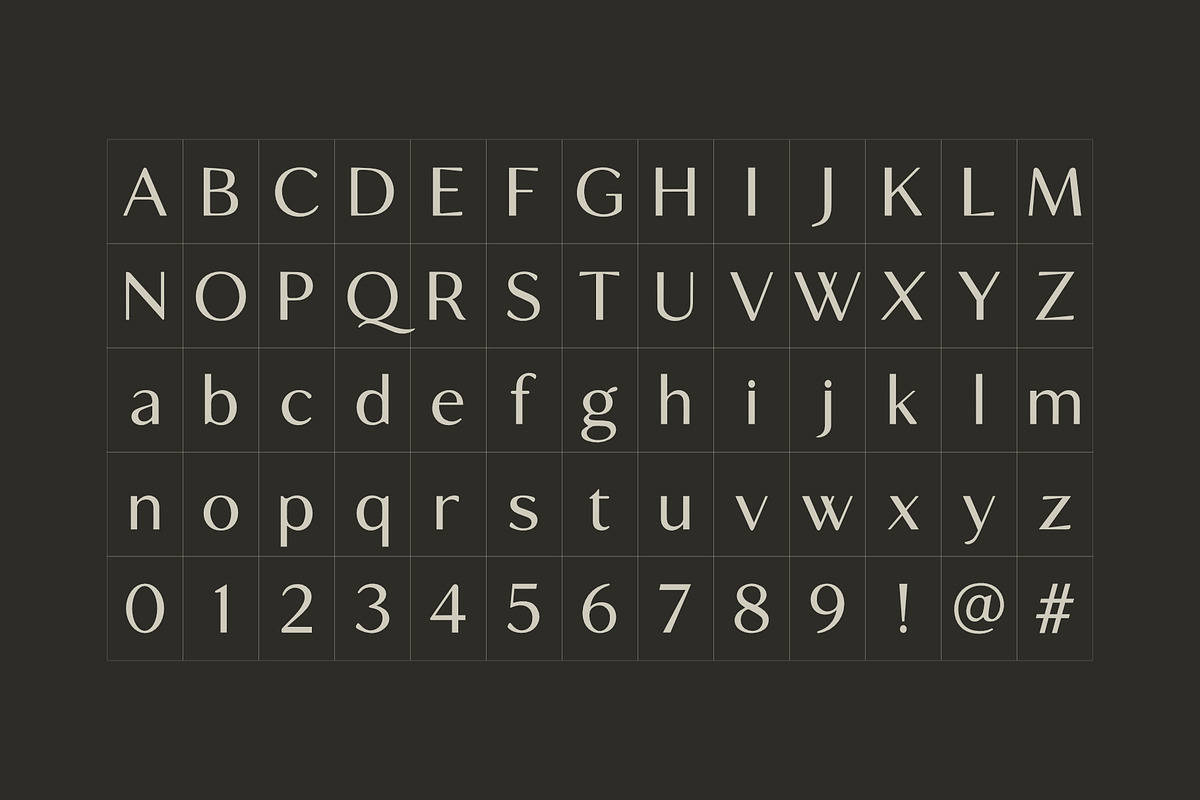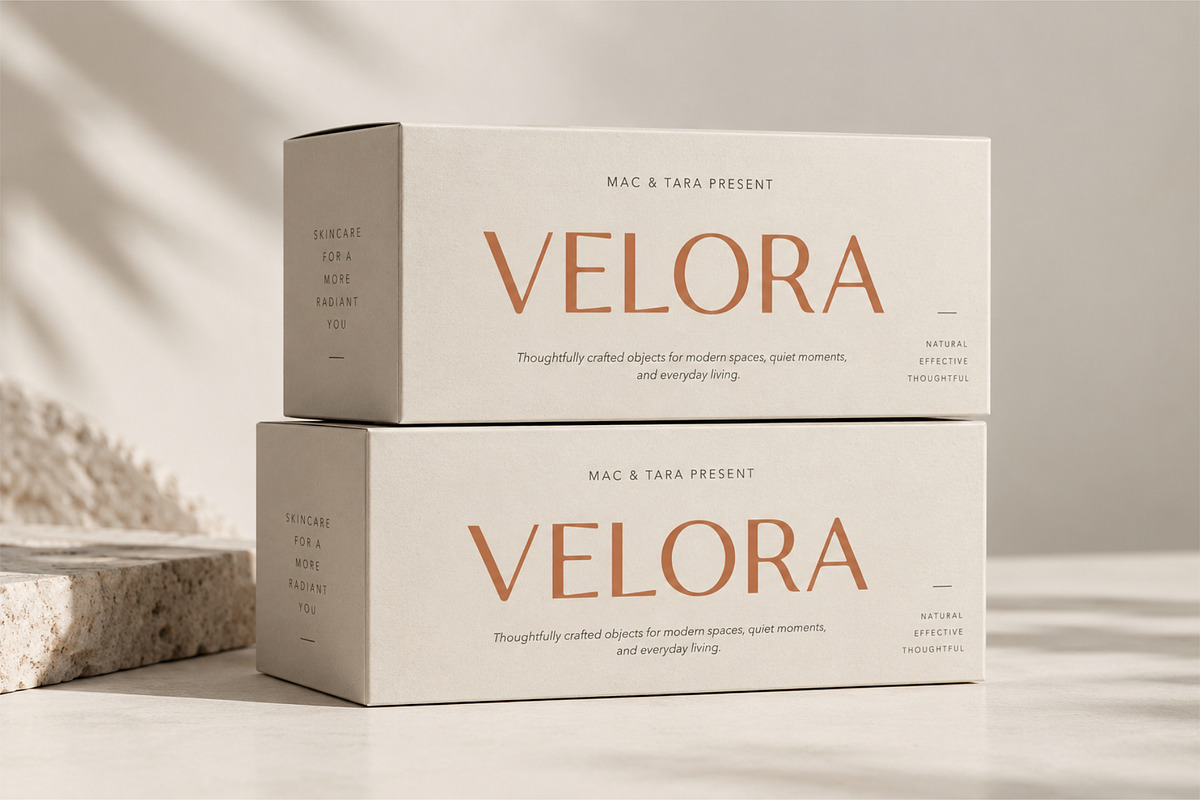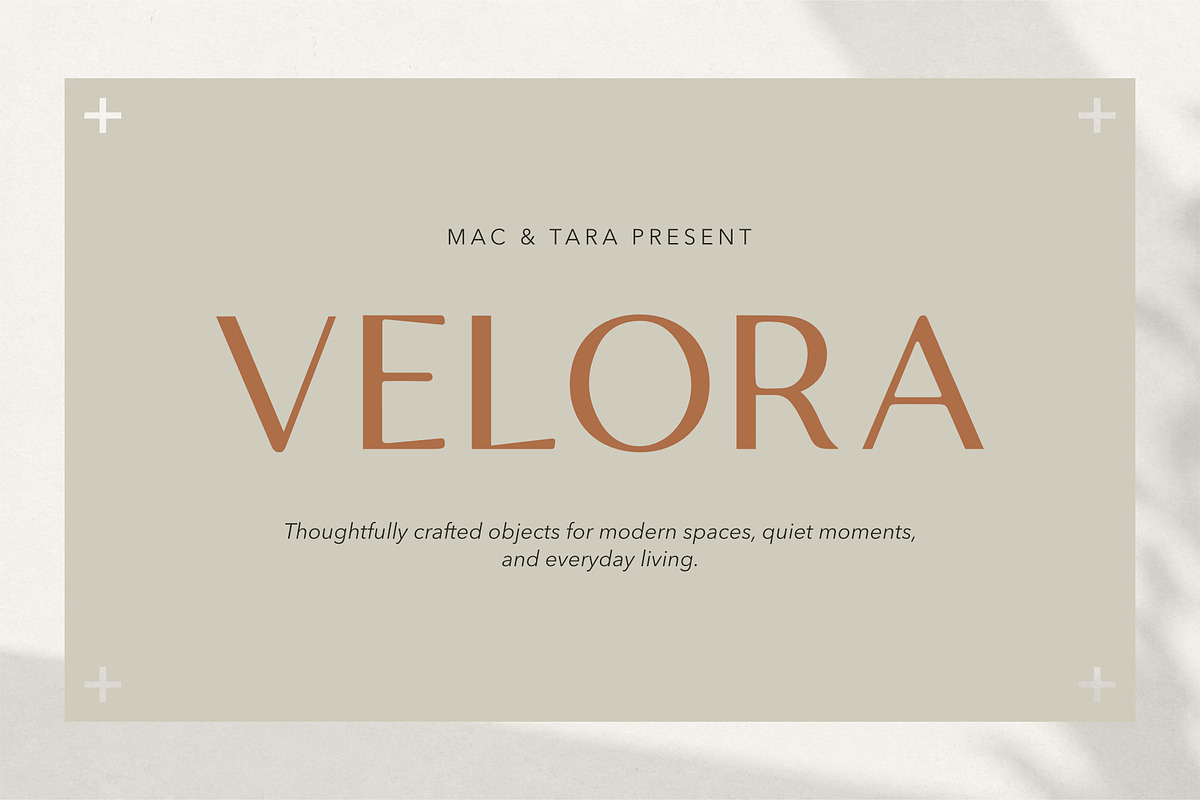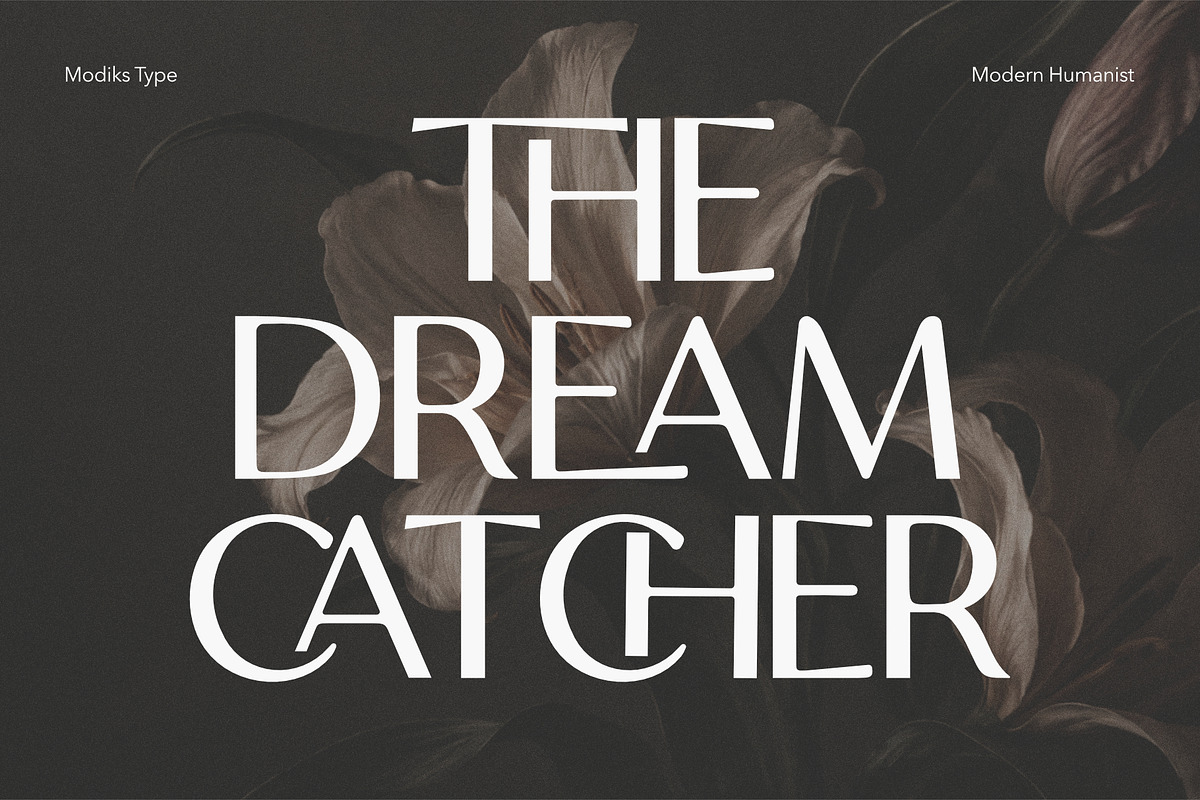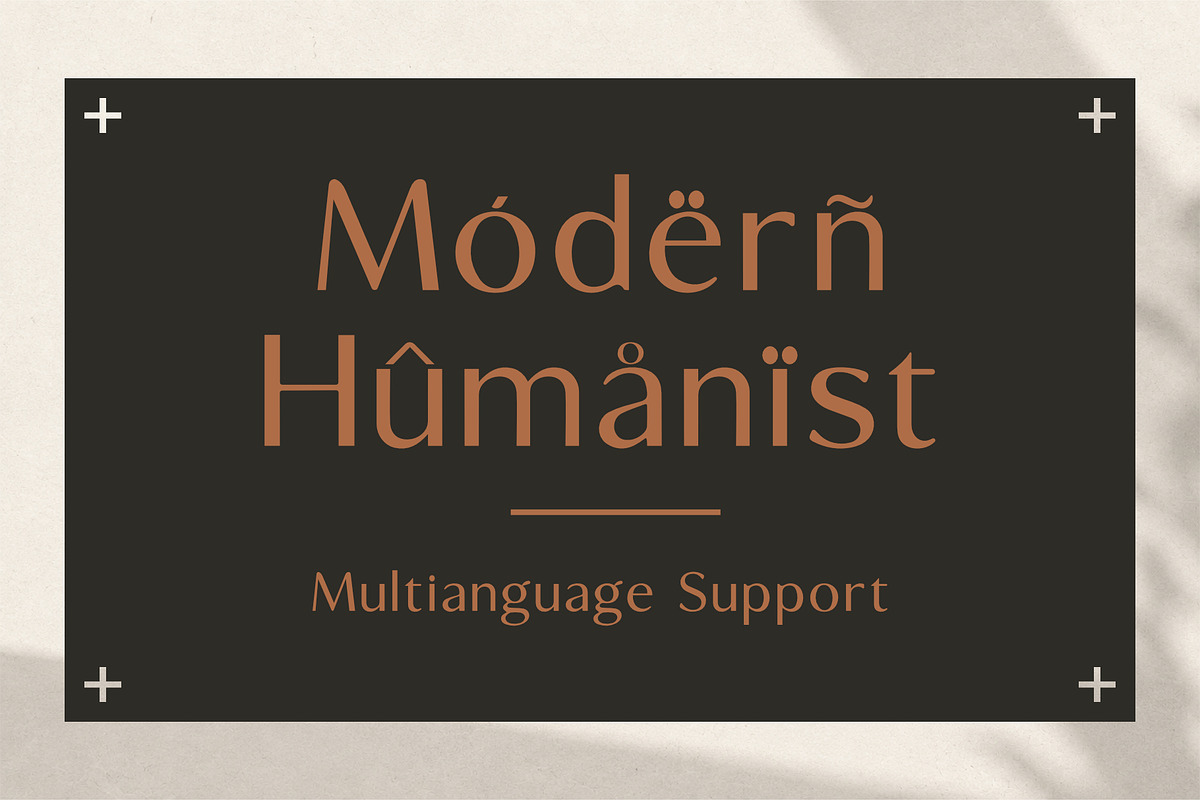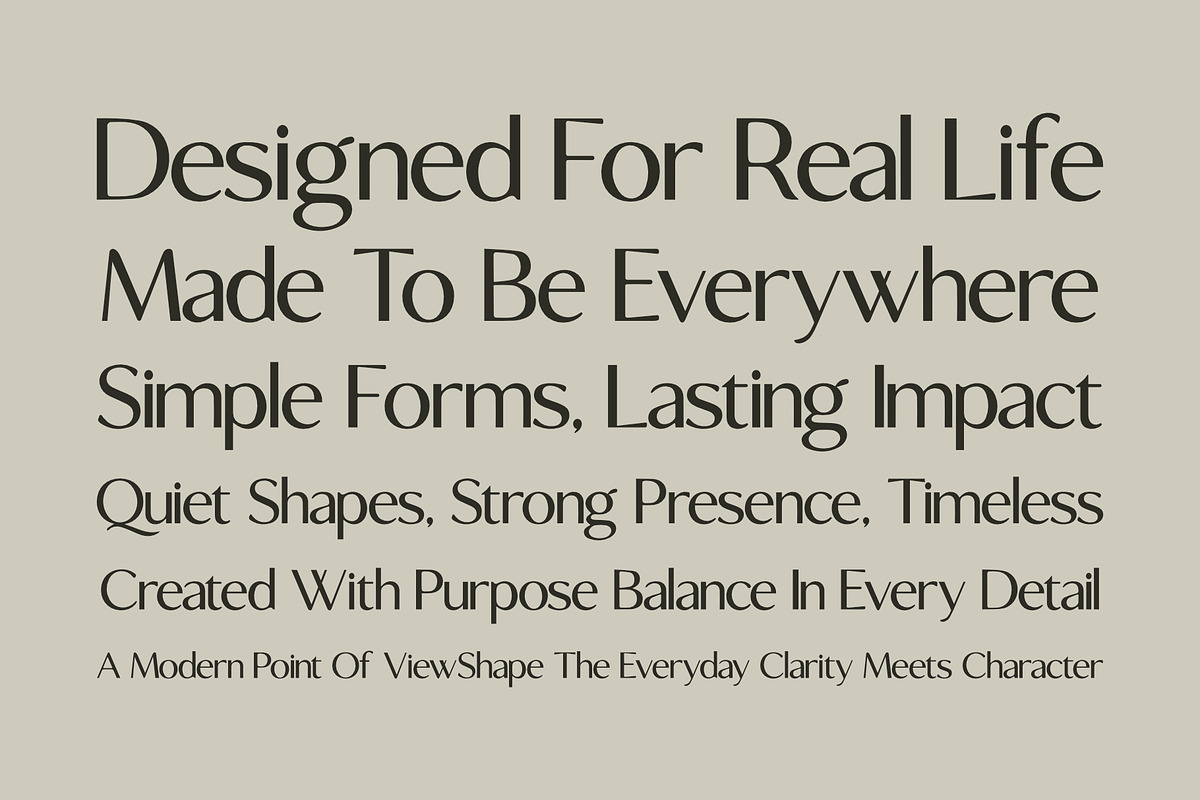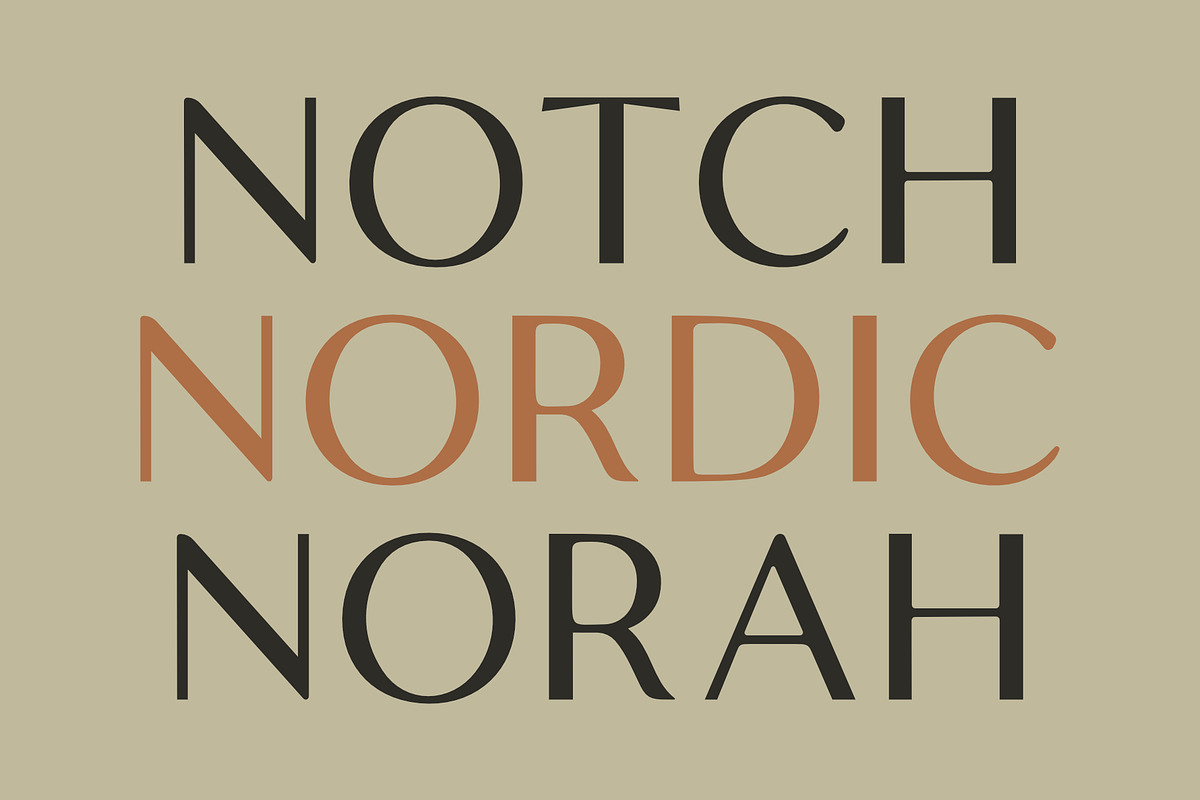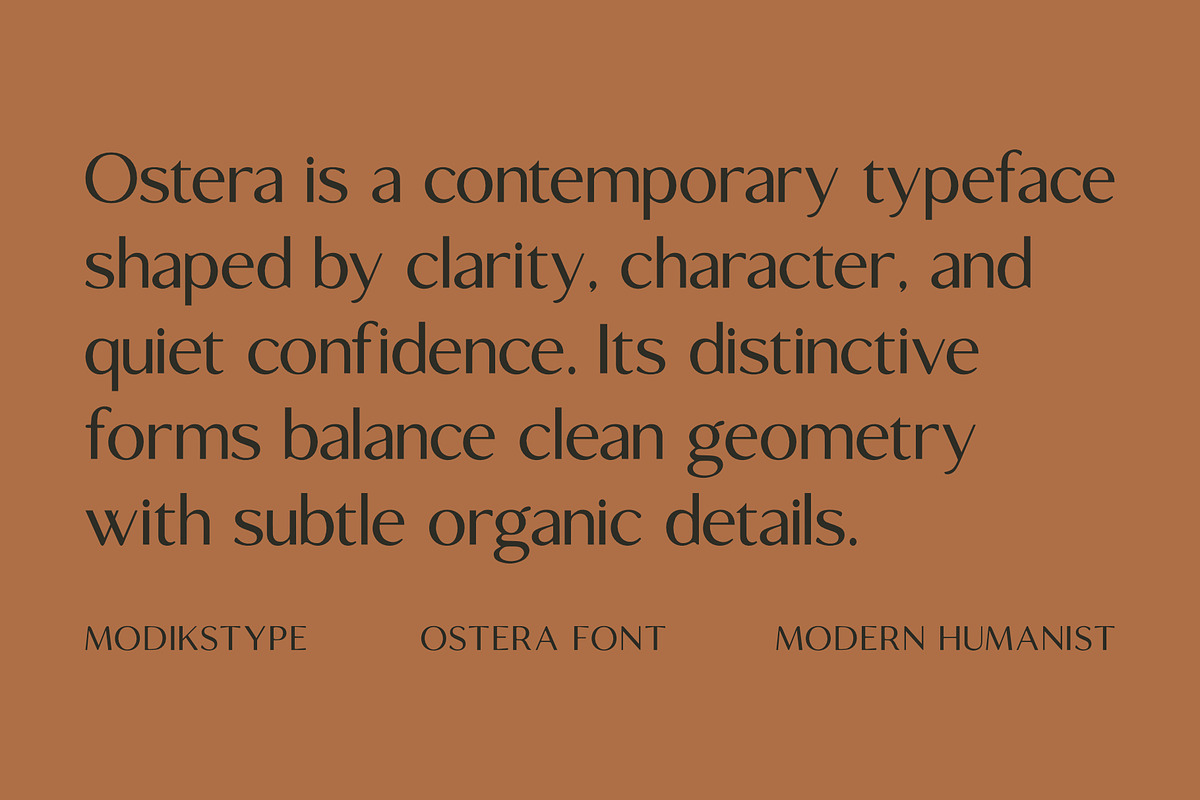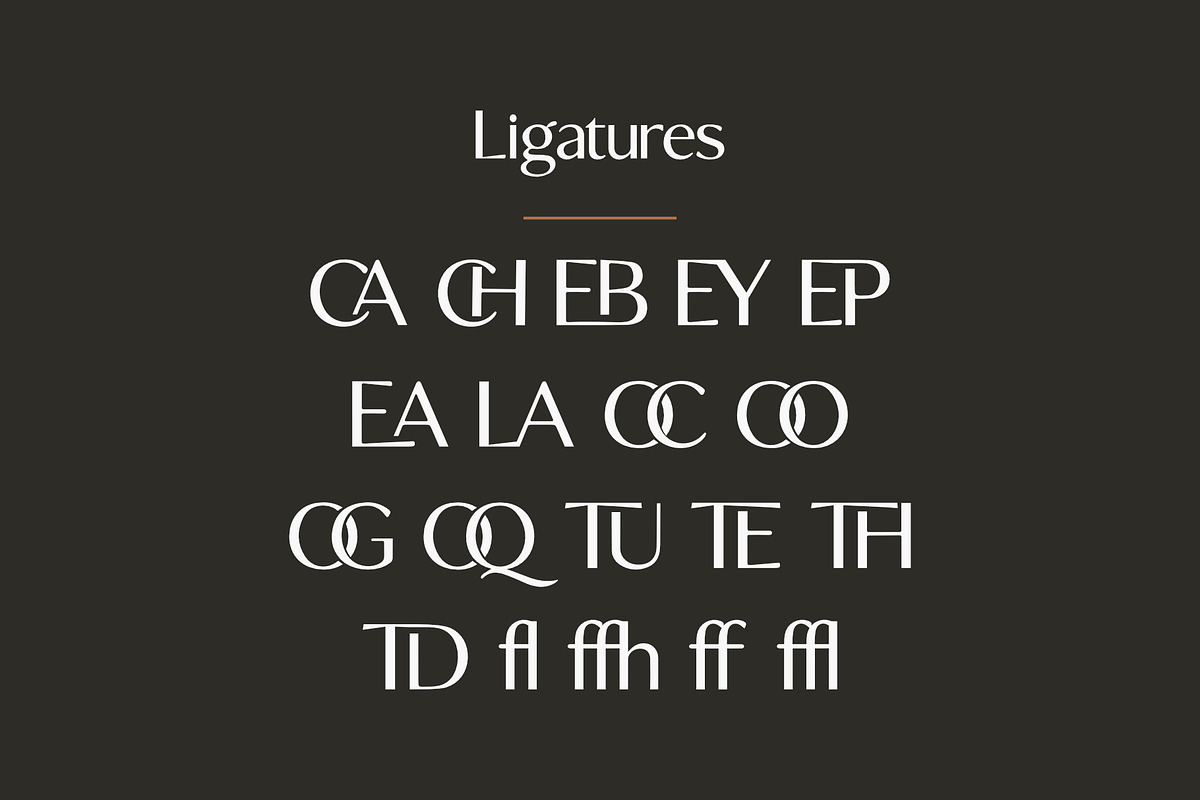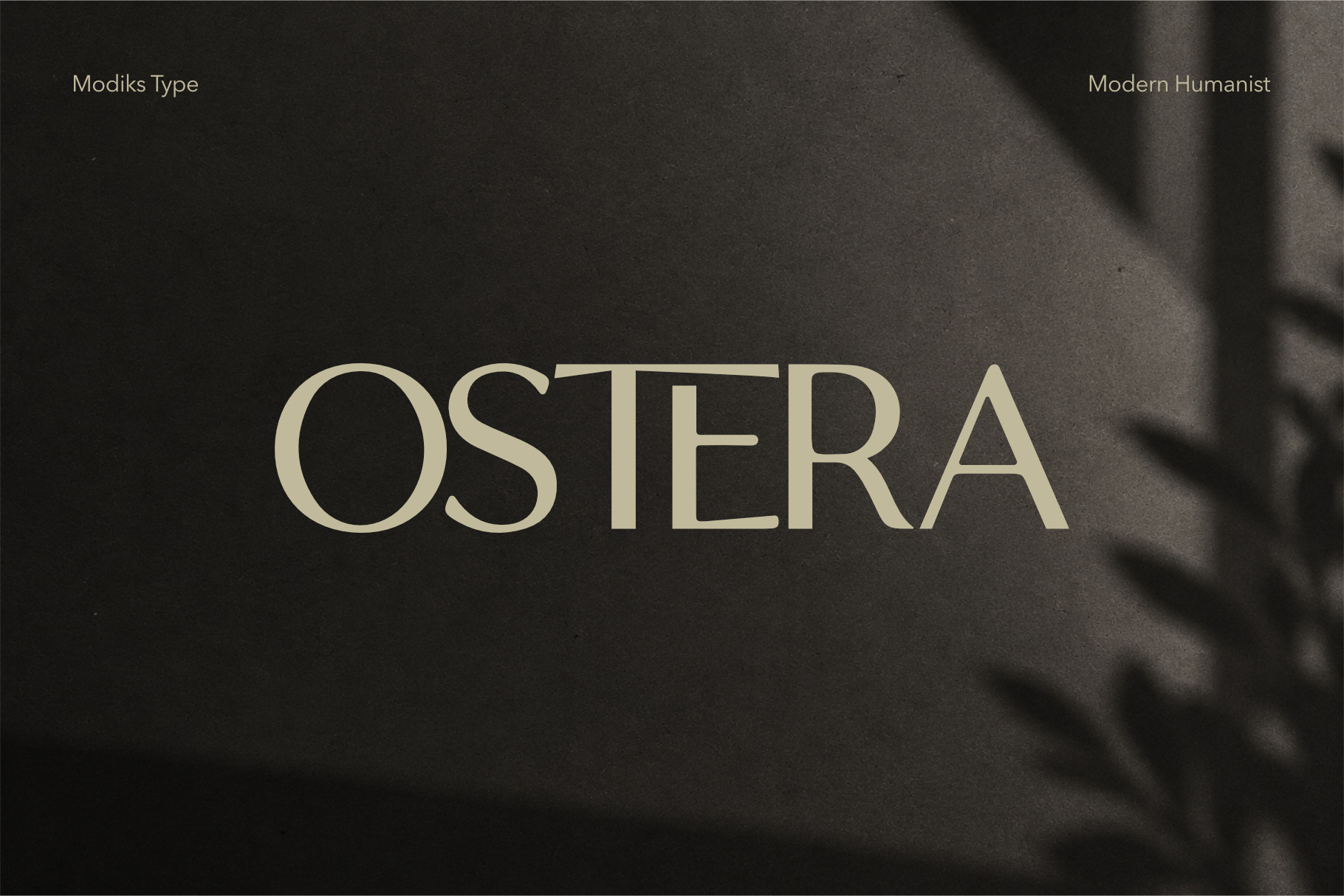
Ostera – Modern Humanist Typeface
OSTERA is a modern humanist typeface where clarity meets character.
Designed with a balance of clean structure and expressive details, Ostera brings a distinctive yet versatile personality to contemporary typography. Its refined proportions, subtle contrast, and carefully shaped letterforms create a natural rhythm that feels modern, elegant, and confidently understated.
Ostera works beautifully across branding, editorial design, fashion, packaging, magazines, posters, websites, social media, and creative campaigns. From oversized headlines to sophisticated brand identities, its unique forms give every composition a recognizable visual voice without overpowering the design.
The typeface also includes multilingual support, making it a flexible choice for international projects and modern visual identities.